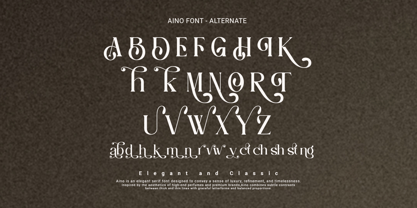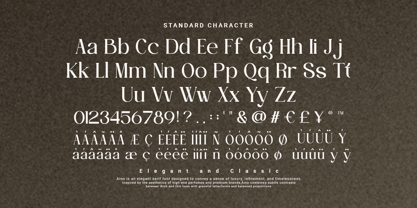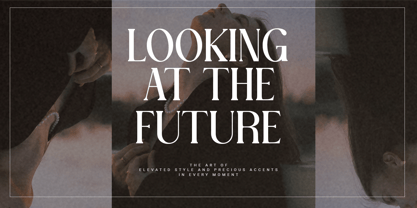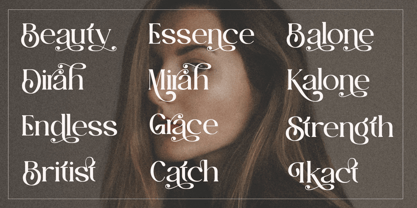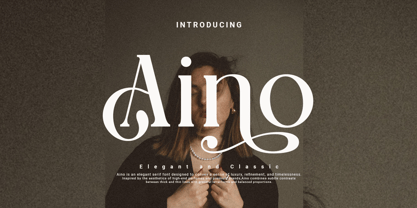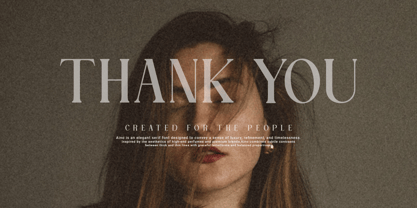
Aino
by Agung Sudirman
The Aino Font Family was designed by Agung Sudirman and published by Agung Sudirman. Aino contains 2 styles and family package options. More about this family
Aino Serif is an elegant, high-end serif typeface designed to bring a refined, timeless, and distinctive character to a wide range of creative projects. With its graceful letterforms, balanced proportions, gentle contrast, and meticulously crafted serifs, Aino creates a beautiful blend of classic typography and contemporary aesthetics. The font offers a luxurious yet approachable feel, making it an ideal choice for branding, editorial layouts, fashion magazines, beauty products, wedding invitations, logos, packaging, social media designs, posters, headlines, and other visual projects that prioritize a premium, exclusive look. Aino Serif is designed to deliver excellent readability while infusing character and sophistication into every composition, making it a versatile choice for designers seeking to create an elegant visual identity with strong typographic character.
Designers: Agung Sudirman
Foundry: Agung Sudirman